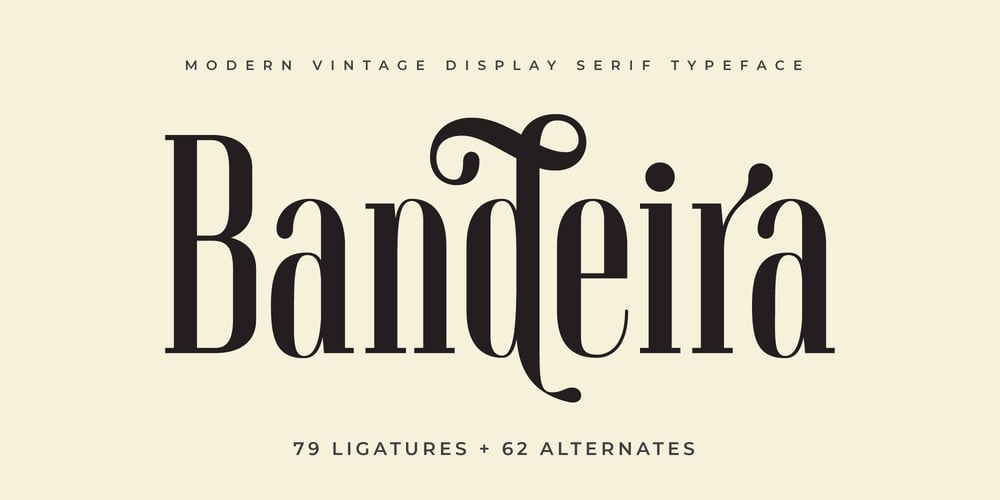
Bandeira Font Family was designed by Nugi Nurzahid and published by Letterium Studio. Bandeira contains 1 styles and family package options. Introducing “Bandeira” , A modern vintage serif font.Bandeira is a display font. You will get 3 different styles in this font (modern, vintage & luxury)- To get Vintage style you can use Alternates / Stylistics Set. Swash / Flourish on the lowercase will add a vintage feel to your design.- To get a Modern classic style, just type regular regular.- To get Luxury style, just type Uppercase & play with letter spacing.Bandeira has Stylistic sets / Alternates. And also has 2 ligature features (Standard Ligatures & Dictionary Ligatures)- Standard Ligatures : activated automatically.- Dictionary Ligatures : you have to activate it manually. Because Dictionary Ligatures are required for optional.Bandeira is very versatile for cosmetic brand, logo, magazines, fashion, social media, poster designs, wedding invitations, branding and many more.Enjoy!NugiLetterium Studio